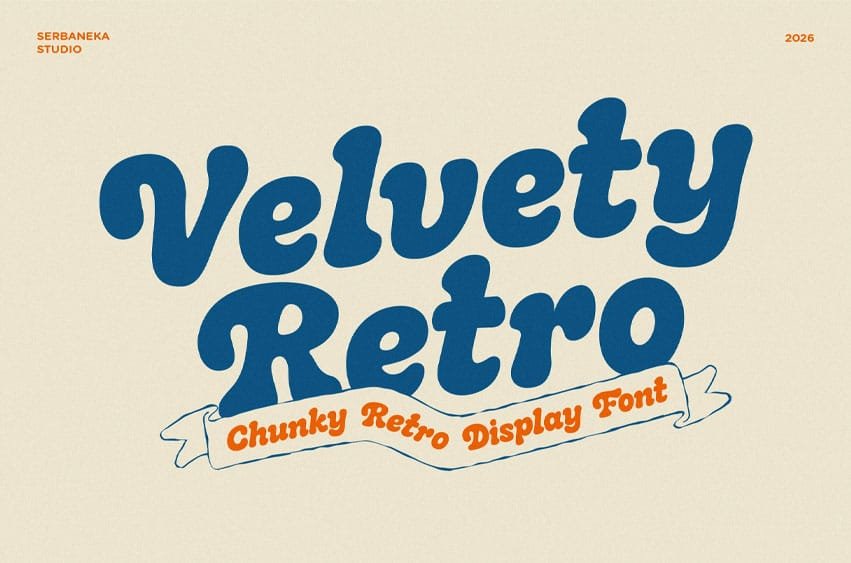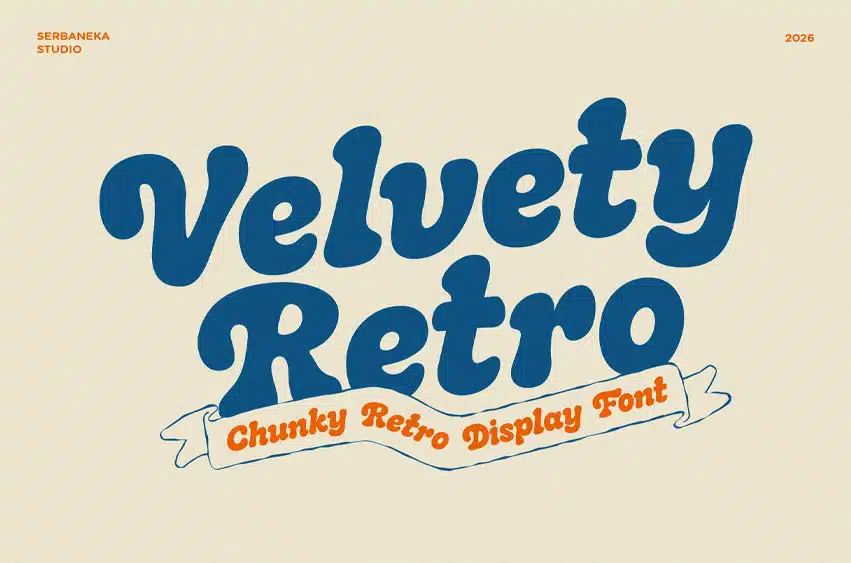
Velvety Retro Font is a bold and chunky display font inspired by the iconic groovy typography of the 70s. Featuring smooth curves, thick strokes, and soft rounded edges, this font delivers a nostalgic yet fresh look that instantly grabs attention.
Designed to evoke warmth and fun, Velvety Retro blends vintage aesthetics with a modern playful twist. Its bubbly and flowing letterforms create a friendly, approachable feel—perfect for eye-catching headlines and expressive branding.
This font shines in retro-themed designs, food packaging, lifestyle branding, posters, and social media graphics. Whether you’re creating pizza boxes, sauce labels, kids campaigns, or cheerful quotes, Velvety Retro adds personality, boldness, and a timeless vintage vibe.
Highly versatile and readable, it works beautifully across print and digital projects, making your designs stand out with a smooth and groovy touch.
- Standard Ligatures
- Smooth Script Style
- Retro & vintage branding
- Food packaging (pizza, sauce, snacks)
- Posters & flyers
- Logo design
- Kids & playful brands
- Social media graphics
- Merchandise
- Quotes & typography art